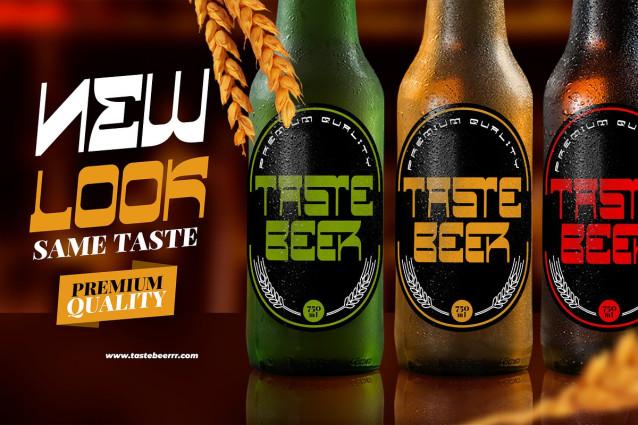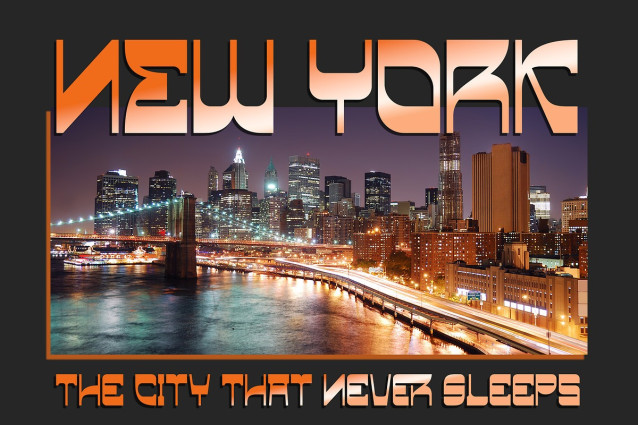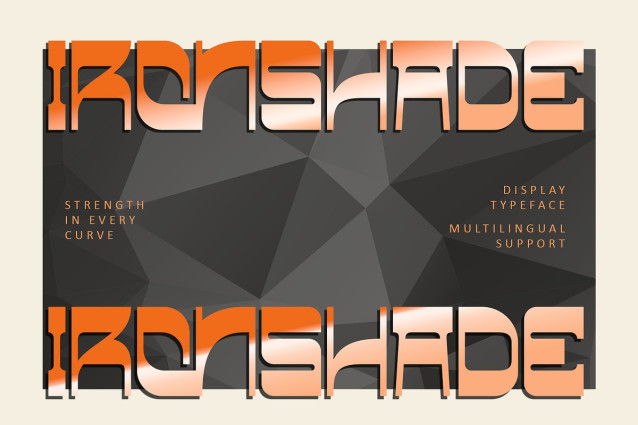
Ironshade Font
Ironshade Font, a striking decorative font that blends boldness with artistic finesse to bring your creative visions to life. Designed to make an impact, Ironshade features intricate details and a commanding presence, making it the perfect choice for eye-catching posters, distinctive logos, and statement branding. Its versatile style effortlessly bridges industrial strength with artistic elegance, ensuring your projects exude character and charm.
With PUA encoding, Ironshade offers seamless access to a variety of unique glyphs and swashes, giving you complete creative freedom. Whether you’re designing for a bold headline, a sophisticated packaging design, or a one-of-a-kind decorative masterpiece, Ironshade ensures your work stands apart.
Let Ironshade infuse your designs with dynamic energy and captivating detail, turning every project into a work of art.